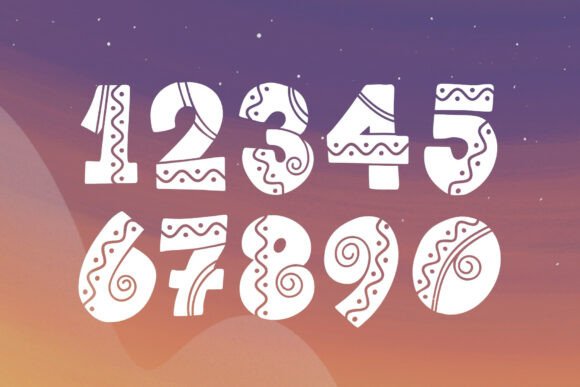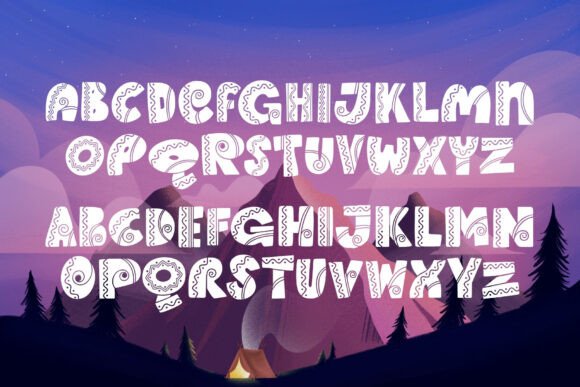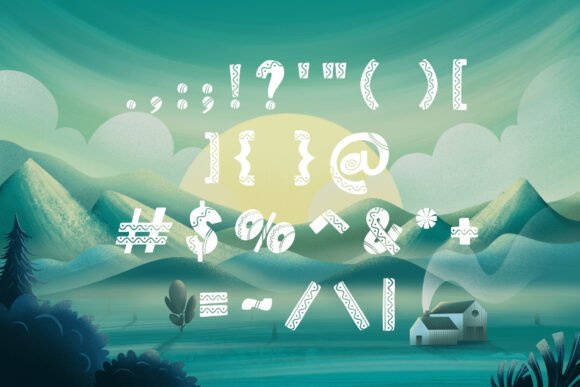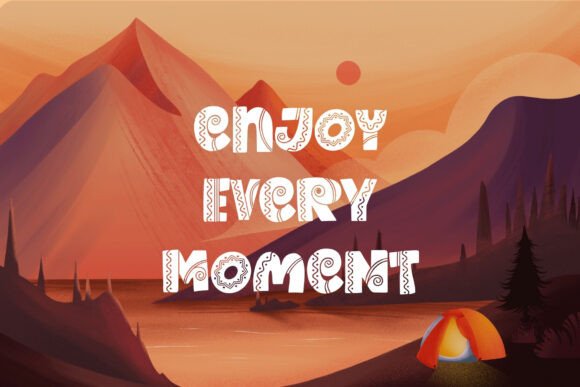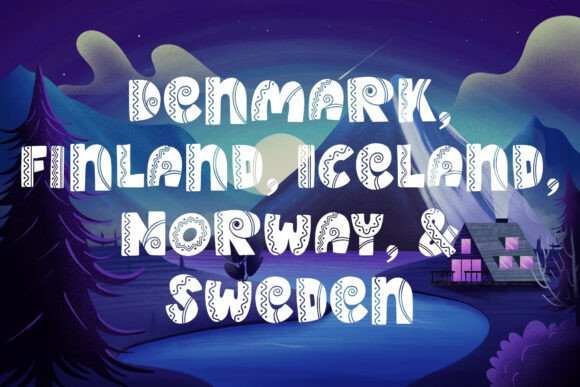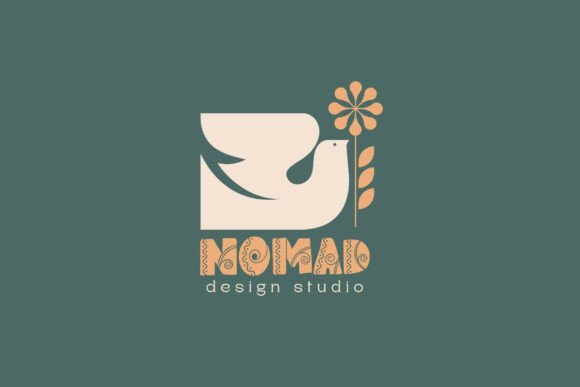
Introduction to Nordic Queen Font
As designers, we’ve all been there – staring at a blank canvas, searching for the perfect font to bring our creative vision to life. And sometimes, it’s the most unexpected fonts that spark the most inspiration. For me, that font is Nordic Queen Font, a charming and whimsical typeface that has captured the essence of Nordic folklore and design. With its playful shapes and quirky ornamental touches, Nordic Queen Font is more than just a font – it’s a design resource that adds a touch of magic and wonder to any creative project.
Whether you’re working on a children’s book, a crafting project, or a festive theme, Nordic Queen Font is a high-quality design resource that offers exceptional versatility. Its nine unique decorative variations allow you to mix and match styles to create a look that’s all your own. And with its transparent background, you can easily place it over any design element, giving you complete control over your creative project.
Key Features of Nordic Queen Font
- High-quality design resource ideal for creative projects, such as graphics, logos, and digital art.
- Features a unique, elegant design with a transparent background, making it perfect for backgrounds, overlays, and other design elements.
- Designed to evoke a sense of Scandinavian charm and sophistication, making it ideal for projects requiring a Nordic touch.
- Supports a wide range of languages, including Latin-based languages and Cyrillic scripts, expanding its usability.
Honest Review: Nordic Queen Font
I recently came across the Nordic Queen Font while searching for a design resource to elevate my creative project. As a designer, I’m always on the lookout for high-quality fonts that can add an extra layer of sophistication to my work.
One of the things that stands out about the Nordic Queen Font is its clean and elegant design ✨. The font features a transparent background, which makes it perfect for overlaying on images or using as a standalone text element. The font is also highly customizable, making it easy to adjust the size, color, and style to suit your design needs.
Here are some of the key features that I like about the Nordic Queen Font:
- High-quality design with a clean and elegant aesthetic
- Transparent background for easy overlaying
- Highly customizable with adjustable size, color, and style
While the Nordic Queen Font is a great design resource, there are a few limitations to be aware of ⚠️:
- May not be suitable for all design projects, particularly those requiring bold or dramatic fonts
- Some users may find the font’s minimalist design too plain
Overall, I’m impressed with the Nordic Queen Font and would highly recommend it to designers looking for a high-quality, versatile font for their creative projects.
Nordic Queen Font
Getting the Most Out of Nordic Queen Font
To get the most out of the Nordic Queen Font, use it in creative projects such as logo designs, social media graphics, and print materials. The font’s unique style and high quality make it perfect for making a statement in your designs.